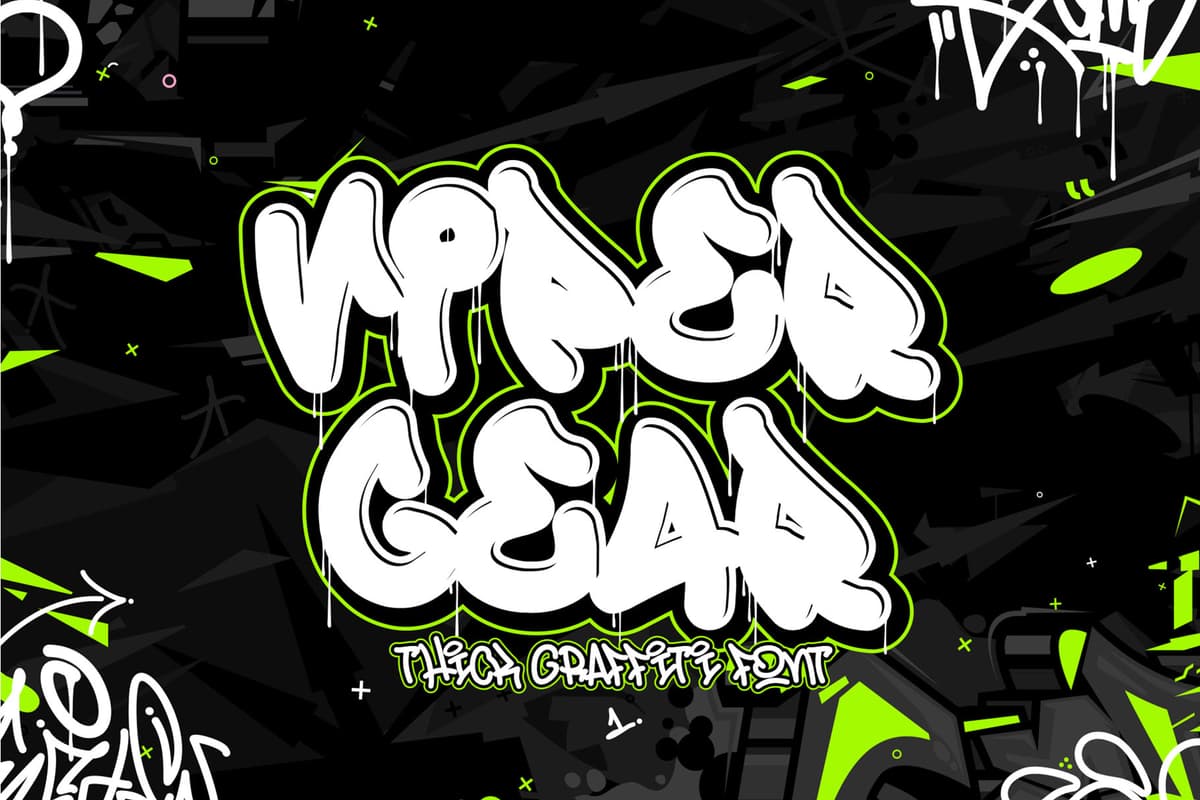
Viper Gear
Introducing Viper Gear – the ultimate Thick Graffiti Font with a unique drip effect style that adds a raw and edgy vibe to your designs. Perfectly embodying the spirit of urban street art, Viper Gear is designed to make a bold, rebellious statement in any creative project.